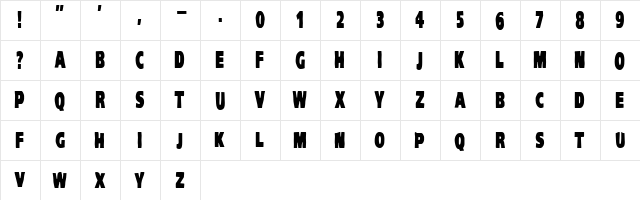
VTC-KomikaHeadLinerTwo Bold
| Foundry | WolfBainx - Larry E. Yerkes, Vigilante Typeface Corporation. |
| Designer | WolfBainx - Larry E. Yerkes, Vigilante Typeface Corporation. |
Design Context for VTC-KomikaHeadLinerTwo Typeface
VTC-KomikaHeadLinerTwo takes a measured approach to typography — its balanced proportions and neutral character make it a reliable workhorse for both digital and print work. Its bold stroke weight gives it real presence on the page.